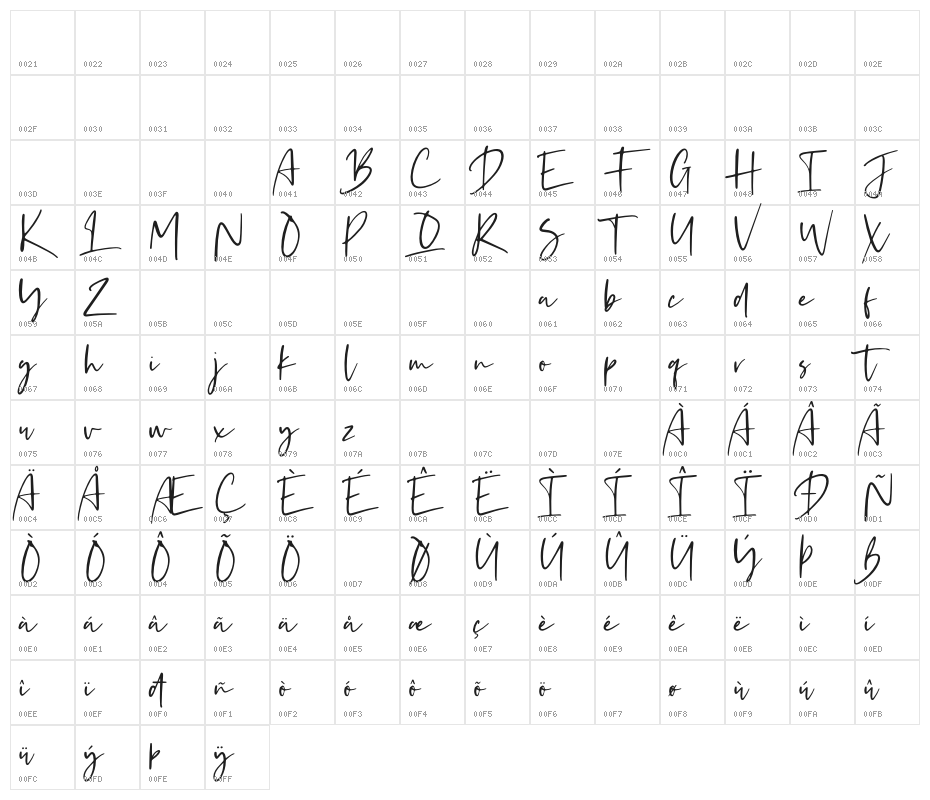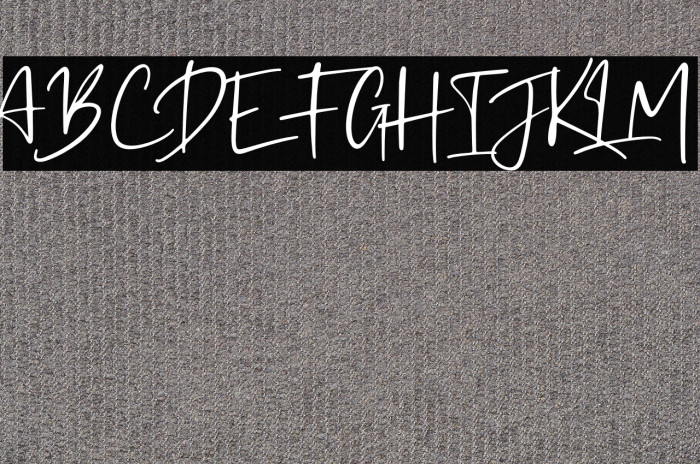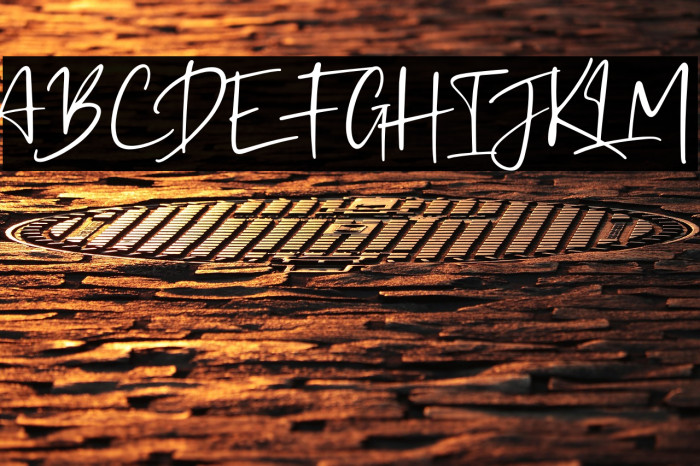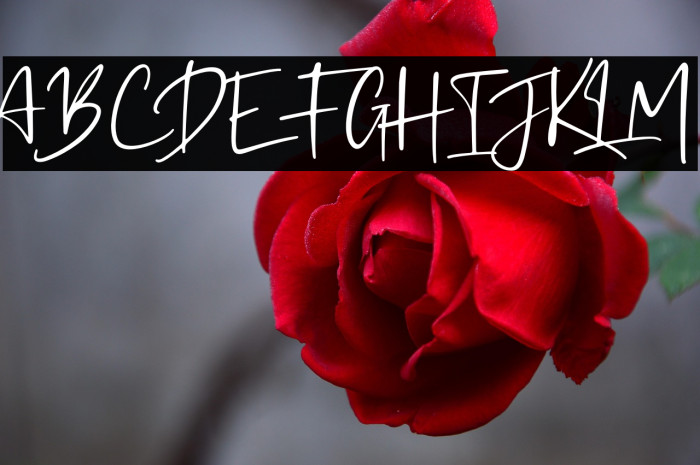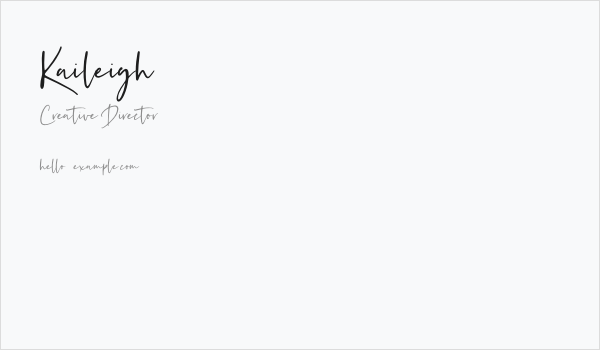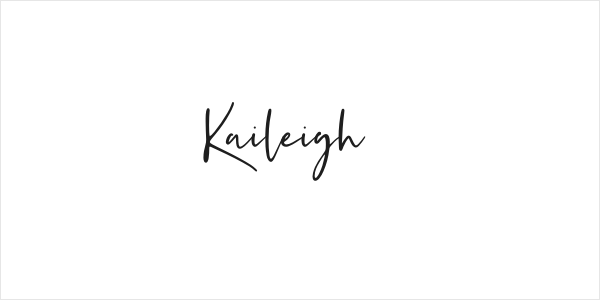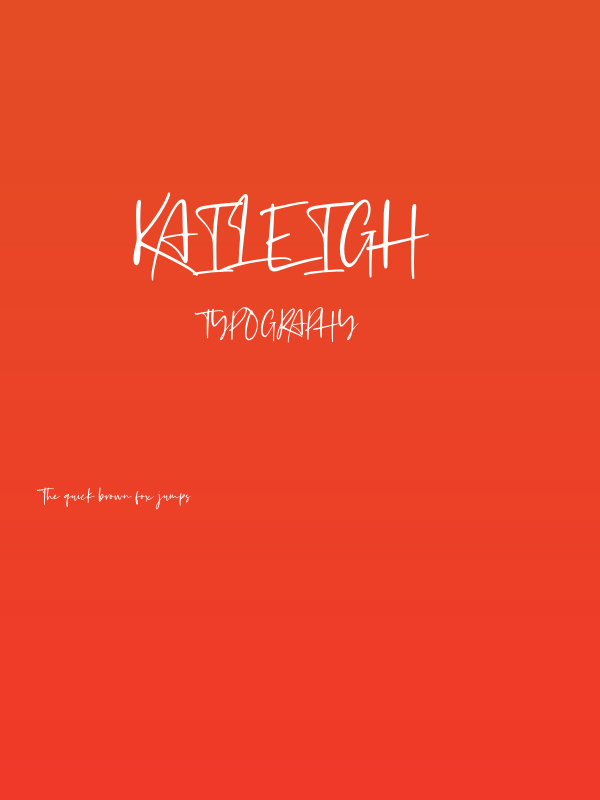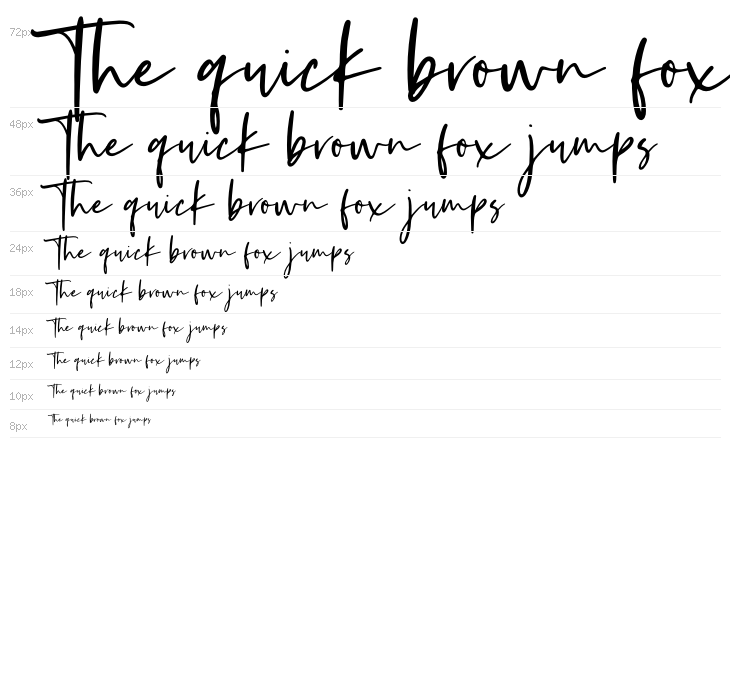
Kaileigh 2 Font
Kaileigh 2 Description
This font features an expressive and dynamic handwritten style, characterized by its fluid and organic strokes. The uppercase letters exhibit a playful and slightly chaotic arrangement, while the lowercase letters maintain a more consistent flow, adding a touch of elegance. The overall appearance is casual yet sophisticated, making it suitable for projects that require a personal and artistic touch. The font's unique personality is conveyed through its varying line thickness and slightly irregular character shapes, which enhance its handwritten appeal.
| Overall Style | Casual, Artistic |
| Proposed Projects | Ideal for greeting cards, invitations, personal branding, and artistic projects. |